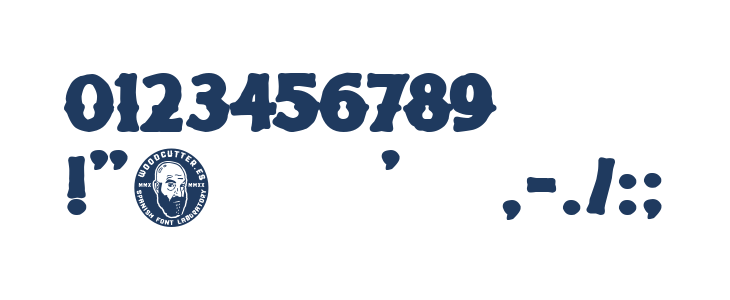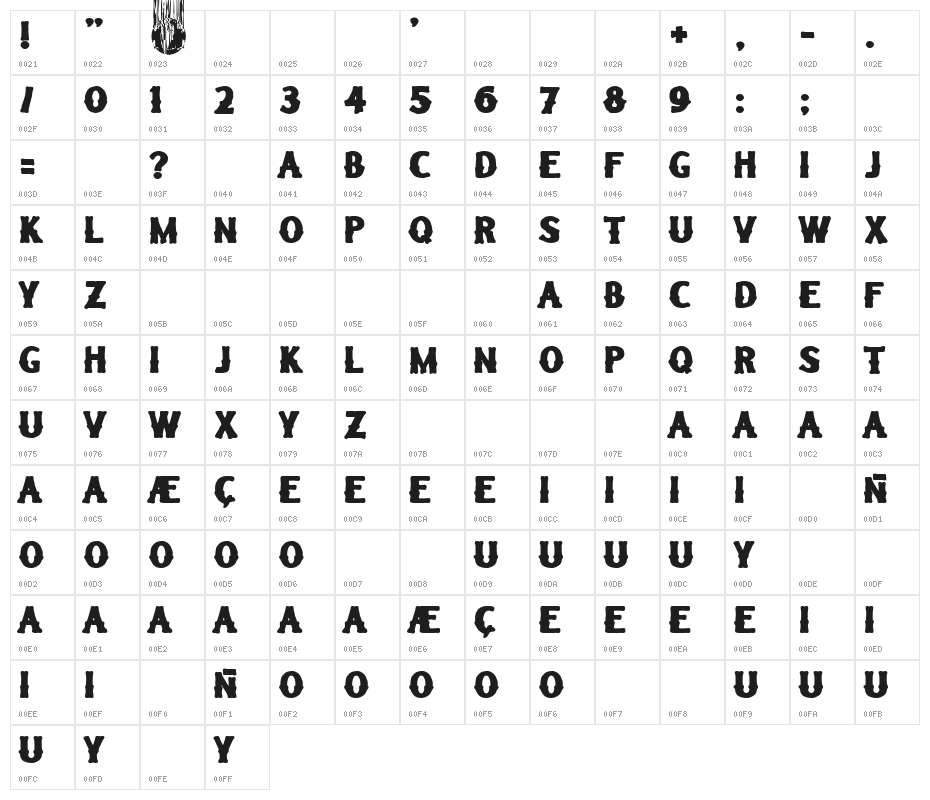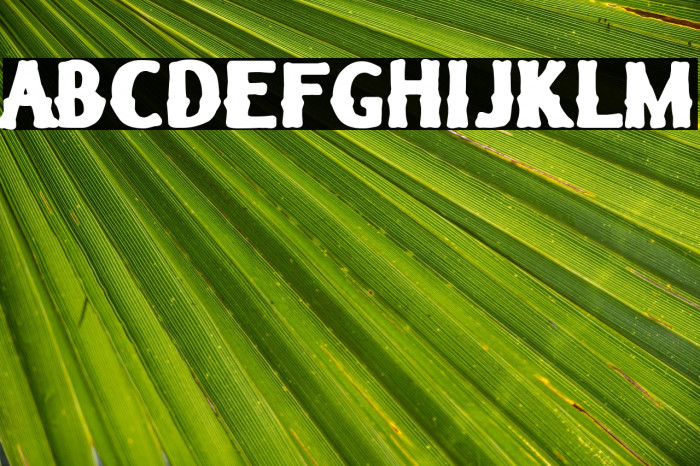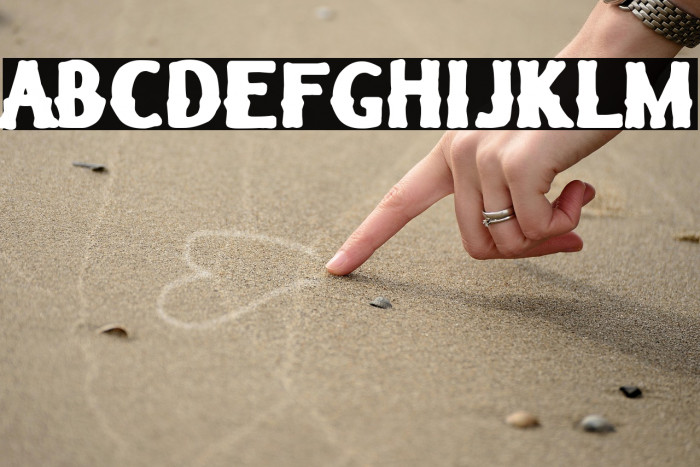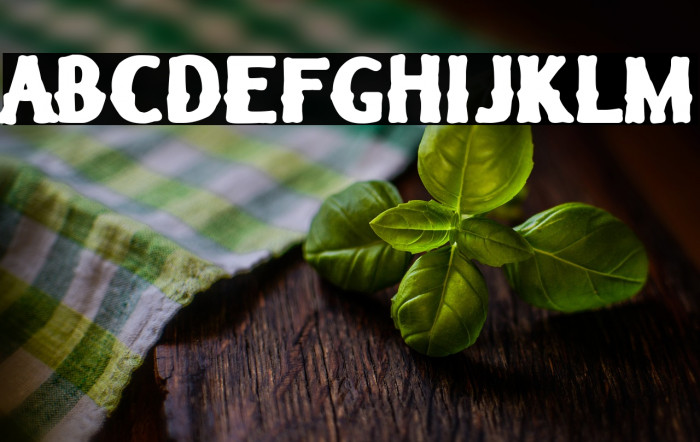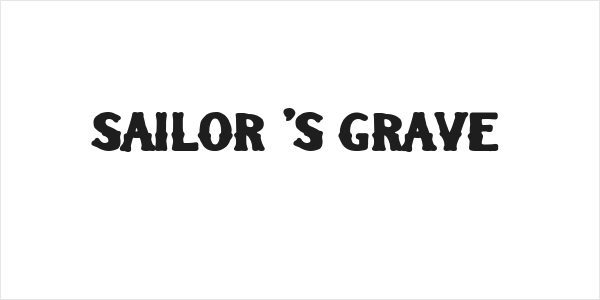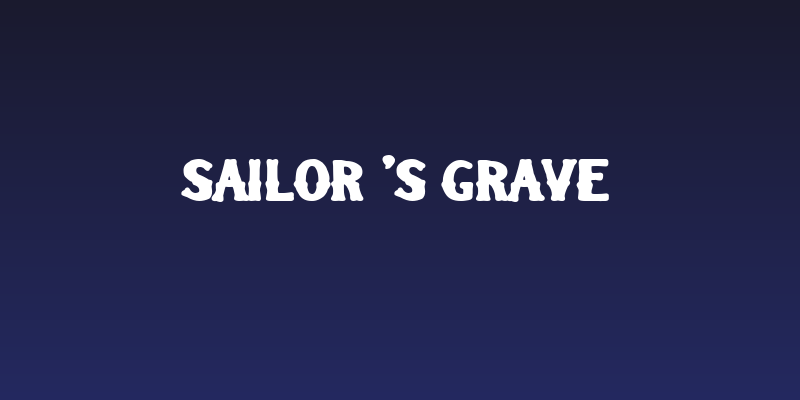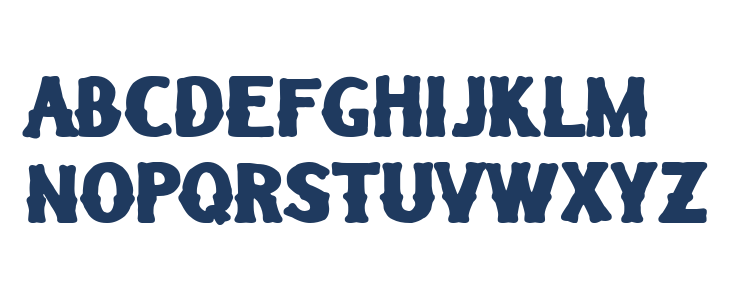
Sailor's Grave Font
Sailor's Grave Description
This font features a bold and rugged style, reminiscent of traditional tattoo art and maritime themes. The characters are thick and slightly irregular, giving them a hand-crafted appearance. The uppercase letters are robust and commanding, while the lowercase letters maintain the same boldness, ensuring consistency across text. Numbers and special characters follow the same design ethos, making them stand out with their unique, slightly distressed look. This font is ideal for projects that require a strong, vintage aesthetic with a touch of rebellious flair.
Overall StyleVintage
Use CaseLogos, Posters, Branding
Proposed ProjectsPerfect for tattoo designs, vintage posters, nautical-themed branding, and apparel design.